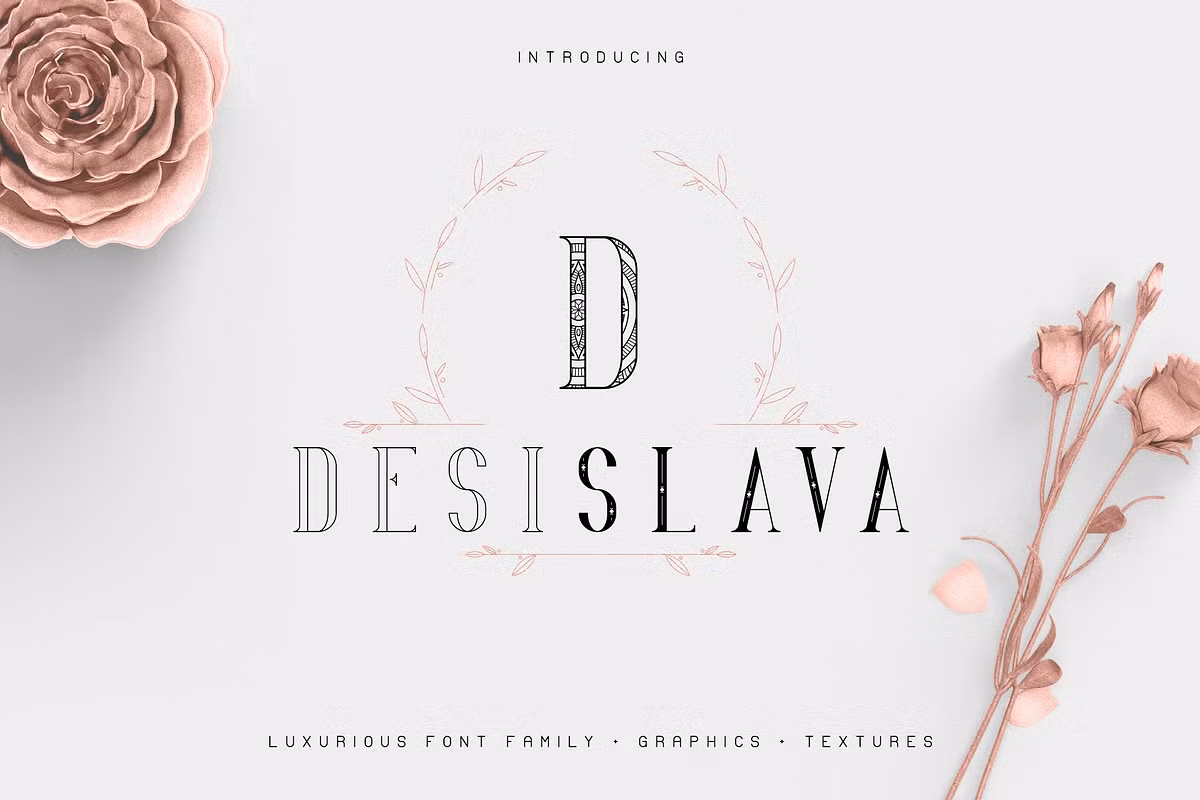
Desislava Luxurious Typeface + Bonus Free Download
Desislava Luxurious Typeface + Bonus Free Download is a stunningly elegant serif font designed to bring a sense of class, beauty, and high-end sophistication to your projects. With its sleek curves, fine lines, and upscale aesthetic, Desislava is perfect for fashion branding, editorial design, luxury packaging, wedding invitations, and premium logos.
Crafted with precision and grace, Desislava Luxurious Typeface + Bonus Free Download includes stylish alternates, ligatures, and bonus decorative elements that elevate the design possibilities. Whether you're working on a minimalist fashion campaign or a chic product line, this font ensures your typography makes a luxurious and lasting impression.